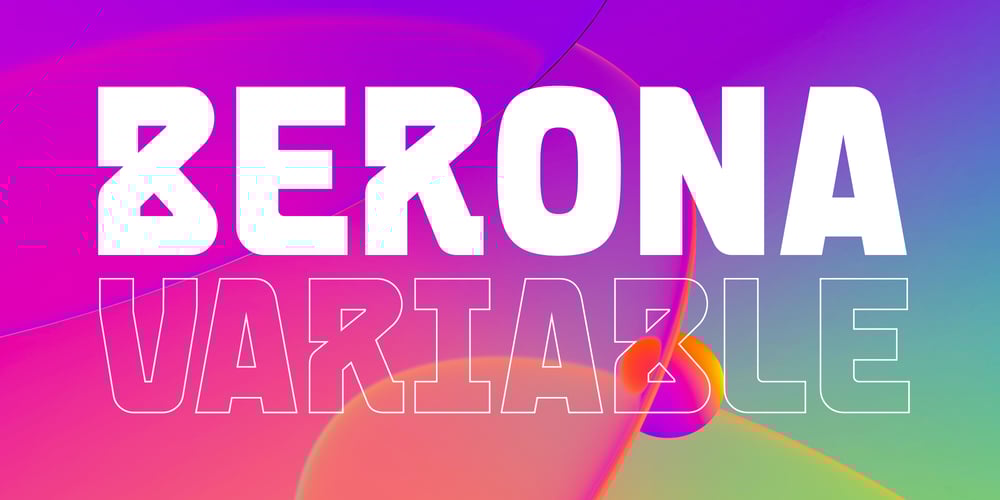
Berona Font Family was designed by Alex Camacho and published by Alex Camacho Studio. Berona contains 10 styles and family package options. Berona font family is a variable geometric sans serif with a modern display purpose. The dynamic sharp edges makes it ideal to be used in a medium and big scale.